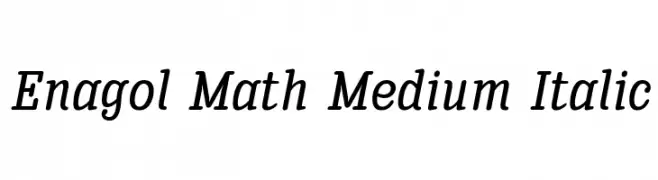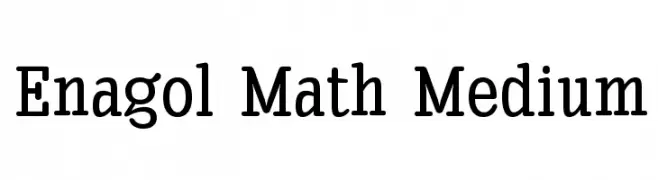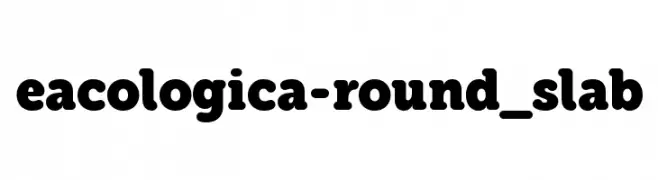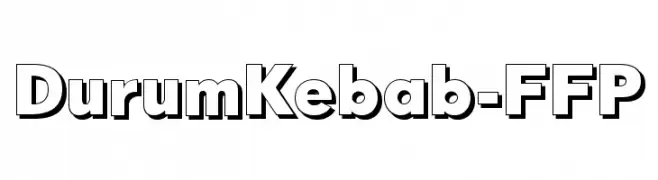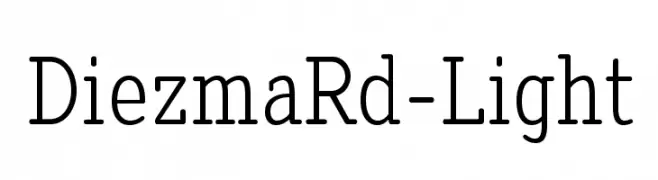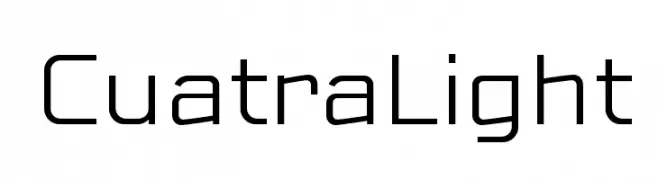
Elegant serif font with medium weight and italic style.
A bold, modern serif font with strong, balanced letterforms.
A bold, rounded slab serif font with playful apple motifs on numbers.
A bold, shadowed font with a modern, three-dimensional style.
A bold, serif font with strong, uniform strokes and pronounced serifs.
A bold slab serif font with strong, block-like serifs and consistent stroke width.
A clean and elegant serif font with thin, uniform strokes and subtle curves.
A modern serif font with clean lines and balanced proportions.
A modern, geometric sans-serif font with a clean and balanced design.
A bold, geometric font with a modern and assertive style.